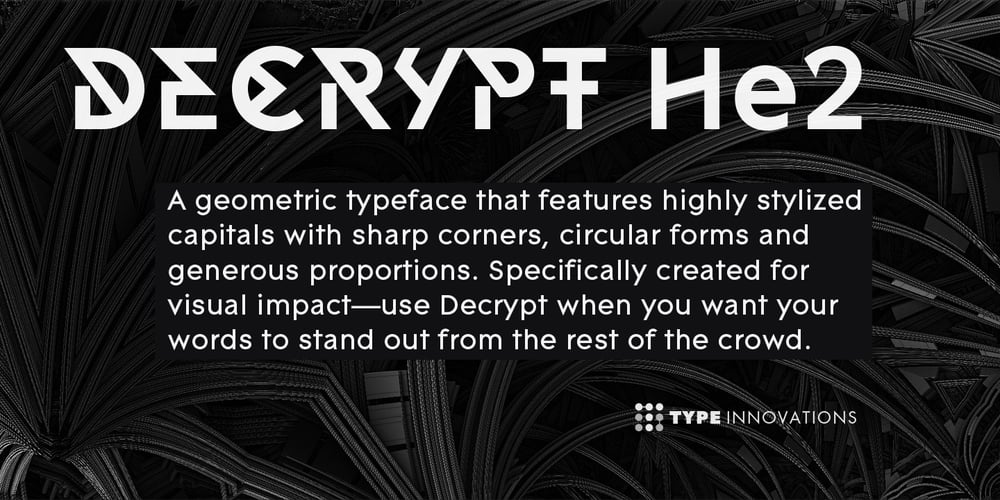
Decrypt He2
Decrypt He2 font
Decrypt He2 Font Family was designed by Alex Kaczun and published by Type Innovations. Decrypt He2 contains 1 styles and family package options. Say hello to Decrypt He2—a geometric typeface that features highly stylized capitals with sharp corners, circular forms and generous proportions. Specifically created for visual impact—use Decrypt He2 when you want your words to stand out from the rest of the crowd. The concept is modern, futuristic and non-traditional. Perfect for display text, logos and headings. The development of Decrypt He2 started in 1997, inspired by Alex Kaczun’s best selling grotesque font family called Contax Pro. Decrypt He2 is specifically introduced here as a bold weight, but Alex plans to expand the design to include many weights, styles and alternative design treatments. Stay tuned! If you like Decrypt He2—check out it’s alternate twins Decrypt H1, Decrypt 01, Decrypt 02 and all of Type Innovations fonts at: http://www.myfonts.com/person/Alex_Kaczun/.